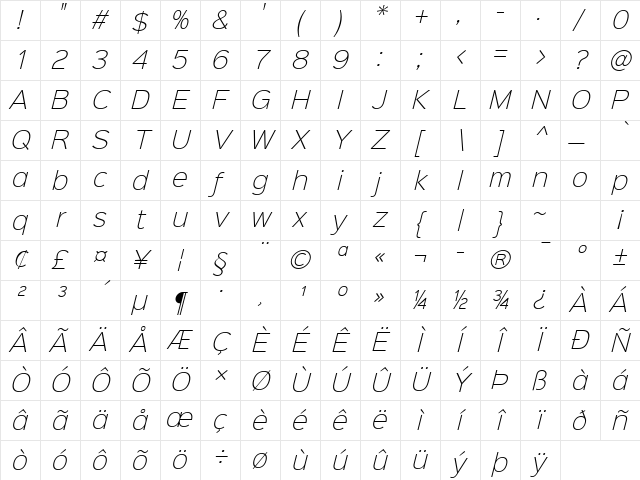
Sinkin Sans 200 X Light Italic 200 X Light Italic
Style: 200 X Light Italic
Copyright: Sinkin Sans 200 X Light Italic by Keith Bates © © 2014 www.k-type.com © Sinkin Sans is a simple, pleasantly proportioned sans serif with tiny, inconspicuous notches that sink into vertical strokes adding highlights to congested corner
Foundry: K-Type
Designer: Keith Bates
Design Context for Sinkin Sans 200 X Light Italic
Sinkin Sans 200 X Light Italic is a composed and adaptable typeface that performs quietly and consistently across a wide range of design contexts. The slanted form adds forward momentum and visual energy. Its slender proportions lend an understated elegance to any composition.
Pro Tip: Use Sinkin Sans 200 X Light Italic for emphasis, pull quotes, and subheadings where its slanted energy can add rhythm to the layout.